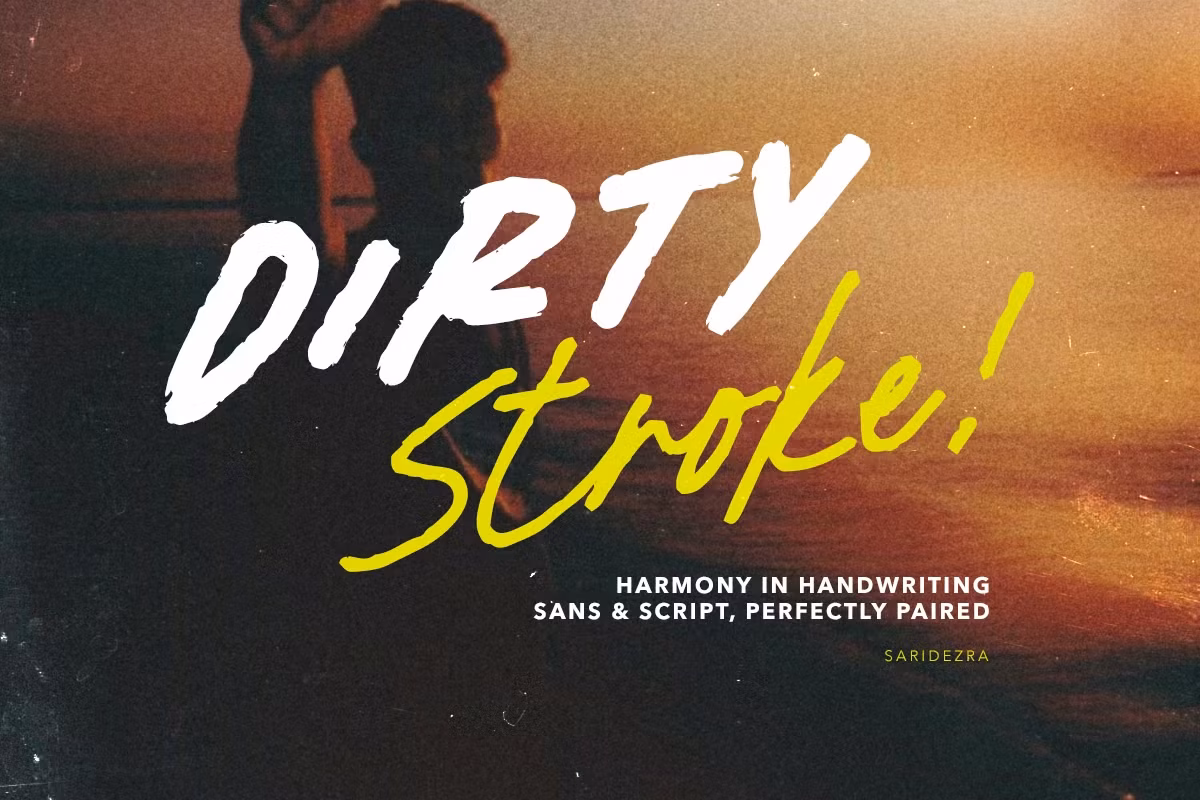
Dirty Stroke - Handwritten Font Duo Free Download is a playful and expressive font pair that combines a bold, handwritten script with a complementary sans-serif. The script font features rough strokes and an organic, hand-drawn feel, while the sans-serif adds structure and clarity, creating a perfect balance for creative projects.
This duo is perfect for logos, branding, social media graphics, invitations, and any design that requires a personal, artistic touch. Whether you're designing for a casual brand, a fun event, or a creative project, Dirty Stroke brings a fresh, authentic vibe to your typography.